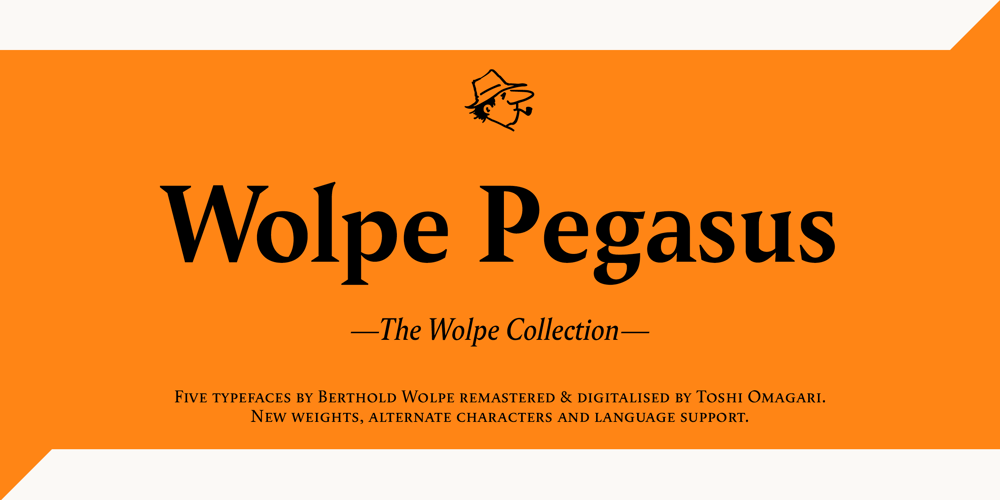
Wolpe Pegasus
Wolpe Pegasus font
Wolpe Pegasus Font Family was designed by Berthold Wolpe, Toshi Omagari and published by Monotype. Wolpe Pegasus contains 4 styles and family package options. Defying many conventions of traditional typeface design, the Wolpe Pegasus™ set takes the inconsistencies and oversized, mismatched serifs of the original Berthold Wolpe typeface, and subtly incorporates them into a design reimagined for digital fonts. Wolpe Pegasus is one of the five designs in The Wolpe Collection of typefaces.